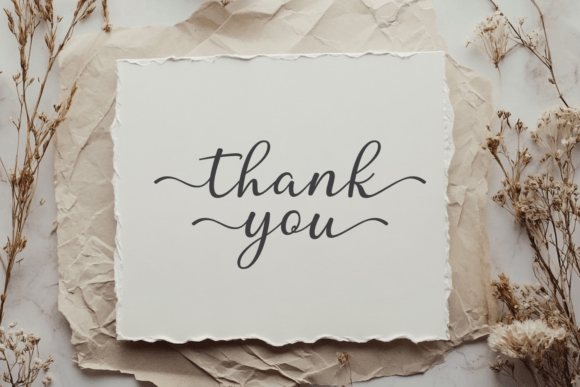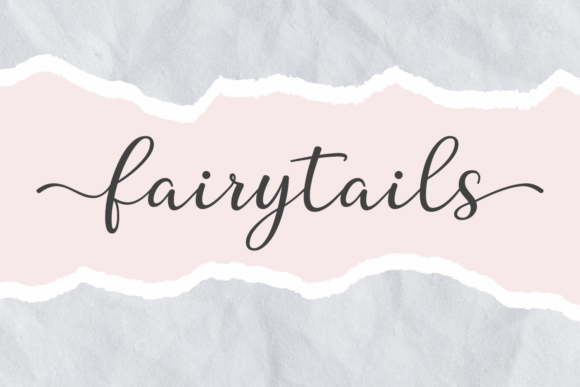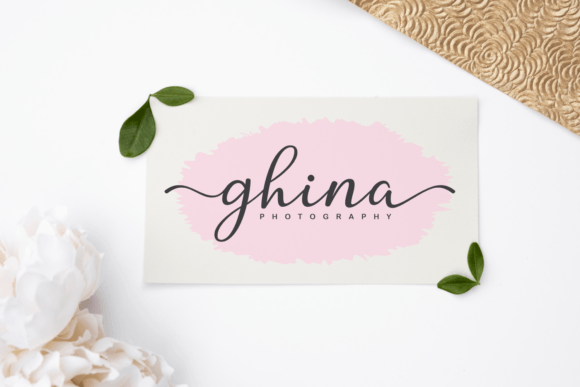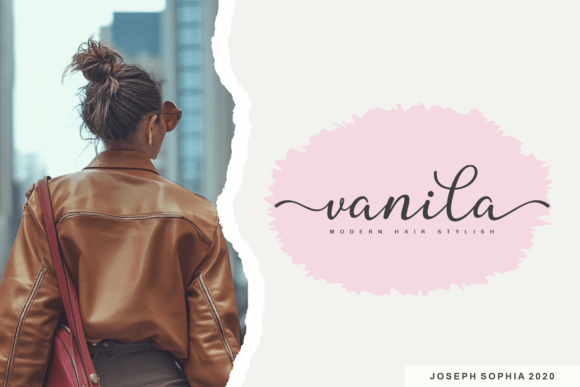
Introduction to Hayba Font Font
Fonts play a crucial role in design, and the Hayba Font font is a typeface that brings both character and versatility to any project. Whether you’re working on a branding project, a website, or a print design, the Hayba Font font offers a unique style that can elevate your work.
Hayba is a beautiful calligraphy font that features elegant, flowing letters.
It combines classic and modern styles, making it perfect for invitations, greeting cards, and artistic projects The fontβs graceful curves and unique shapes add a touch of sophistication to any design.
Key Features of Hayba Font Font
Why Choose Hayba Font Font?
The Hayba Font font is more than just a typeface β it’s a design tool that helps you communicate your message with style and clarity. Its unique character set and versatile design make it suitable for a wide range of applications, from elegant invitations to bold headlines.
With its carefully crafted letterforms and balanced proportions, the Hayba Font font ensures readability and visual appeal across all mediums.
What makes Hayba Font font special?
The Hayba Font font stands out with its unique design, exceptional readability, and versatility across various design applications.